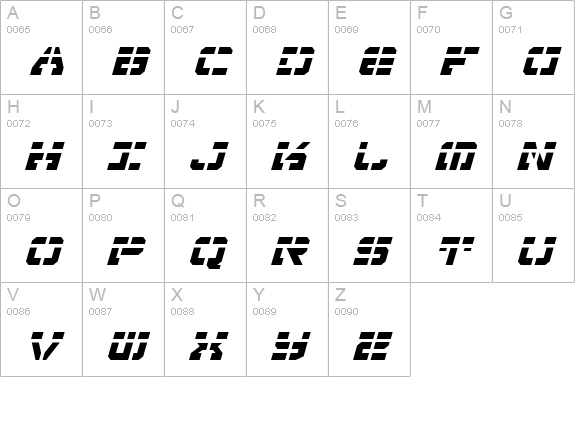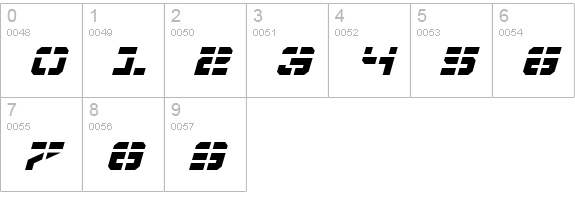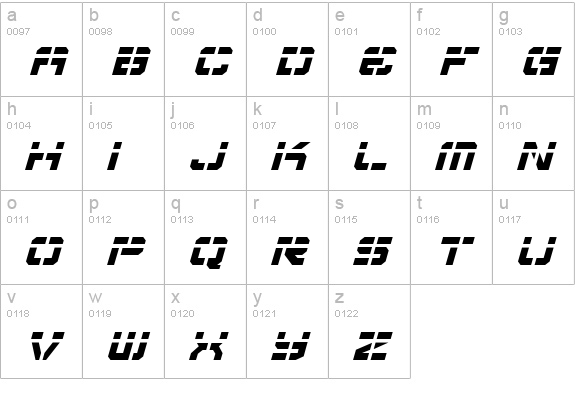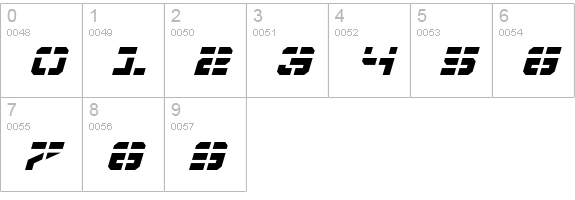
Vyper Laser Italic is a distinctive, italic variant in the Vyper typeface family \xE2\x80\x94 well suited to design and typography projects.
Introducing Vyper Laser Italic font, a sleek and modern typeface that exudes energy and sophistication. With its sharp angles and dynamic curves, this font is perfect for making a bold statement in your design projects. The Vyper Laser Italic font is designed to grab attention and leave a lasting impression. What's even better is that this stunning font is available for free download at FontsMarket.com. Whether you're working on a branding project, advertising campaign, or any other creative endeavor, the Vyper Laser Italic font will add a touch of style and flair to your work. Don't miss out on this opportunity to elevate your designs with this striking typeface.